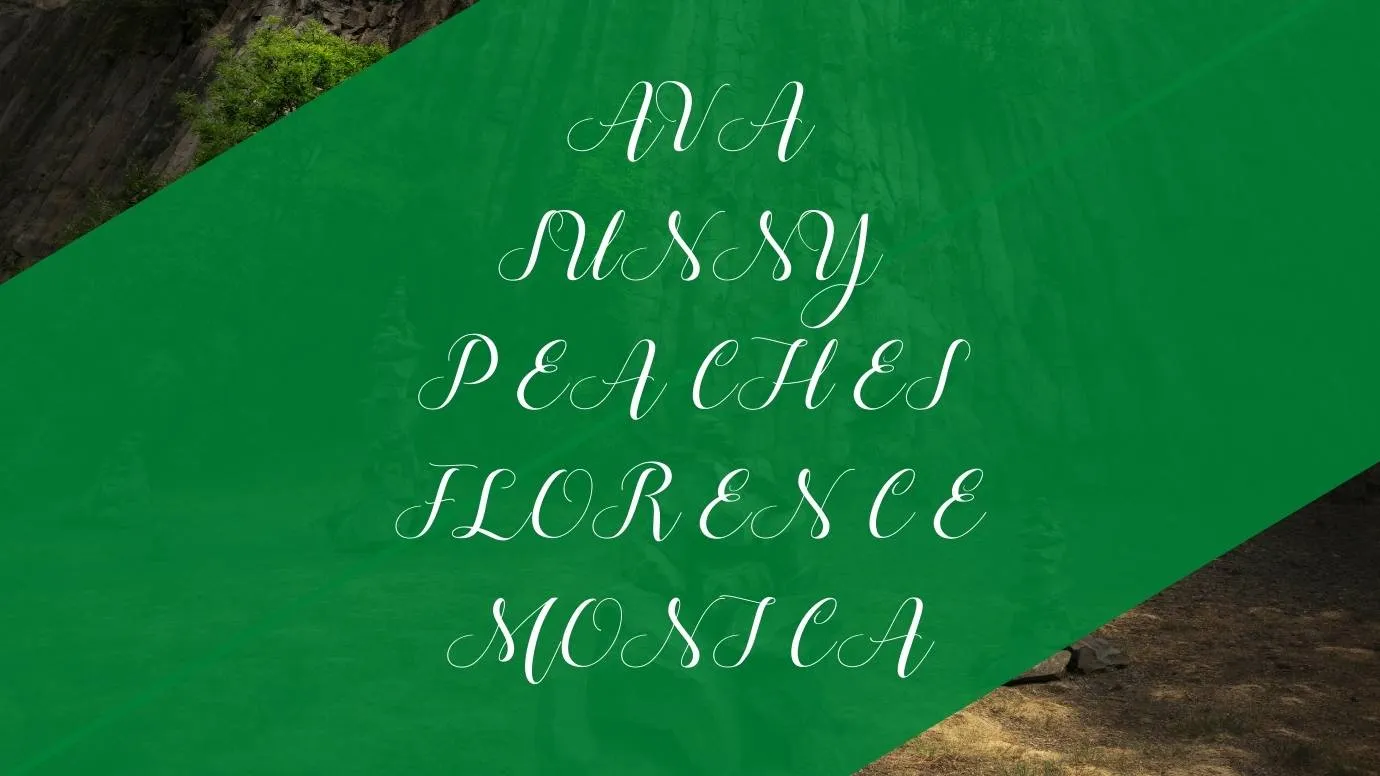
Mantic script font is a modern calligraphy typeface that features an elegant, yet playful design. Created by designer Måns Grebäck, it is perfect for adding a touch of class to any project. The similar and the pairing font to this texture is the Sareeka font.
This typeface features a clean and simple design that makes it easy to read. The lowercase letters are slightly taller than the uppercase letters, which gives the font a unique look. It also features a set of alternative characters that can be used to add a bit of flair to your designs.
While it can be used for a variety of purposes, it is particularly well suited for wedding invitations, greeting cards, and other formal documents. If you’re looking for a stylish way to add a personal touch to your next project, It is a great option.
Designer of Montic Script Font
This calligraphy style of font is designed by a famous graphic designer, which is known, Willium Morris.
This font family includes a regular style, this single style consists of glyphs, digits, capital letters, small letters, punctuation, a set of characters, and a wide range of language support.
| Name | Montic Script Font |
| Style | Calligraphy |
| Designer | Willium Morris |
What font is Montic script font?
This is a modern calligraphy typeface that features an elegant, yet playful design. Created by designer Måns Grebäck.
What font goes with Montic script font?
There are so many fonts to get a match with this font but, the most paired font to this typeface is Midnight Valentine Font.
Who created the Montic script typeface?
This calligraphy style of font is designed by a famous graphic designer, which is known, Willium Morris.